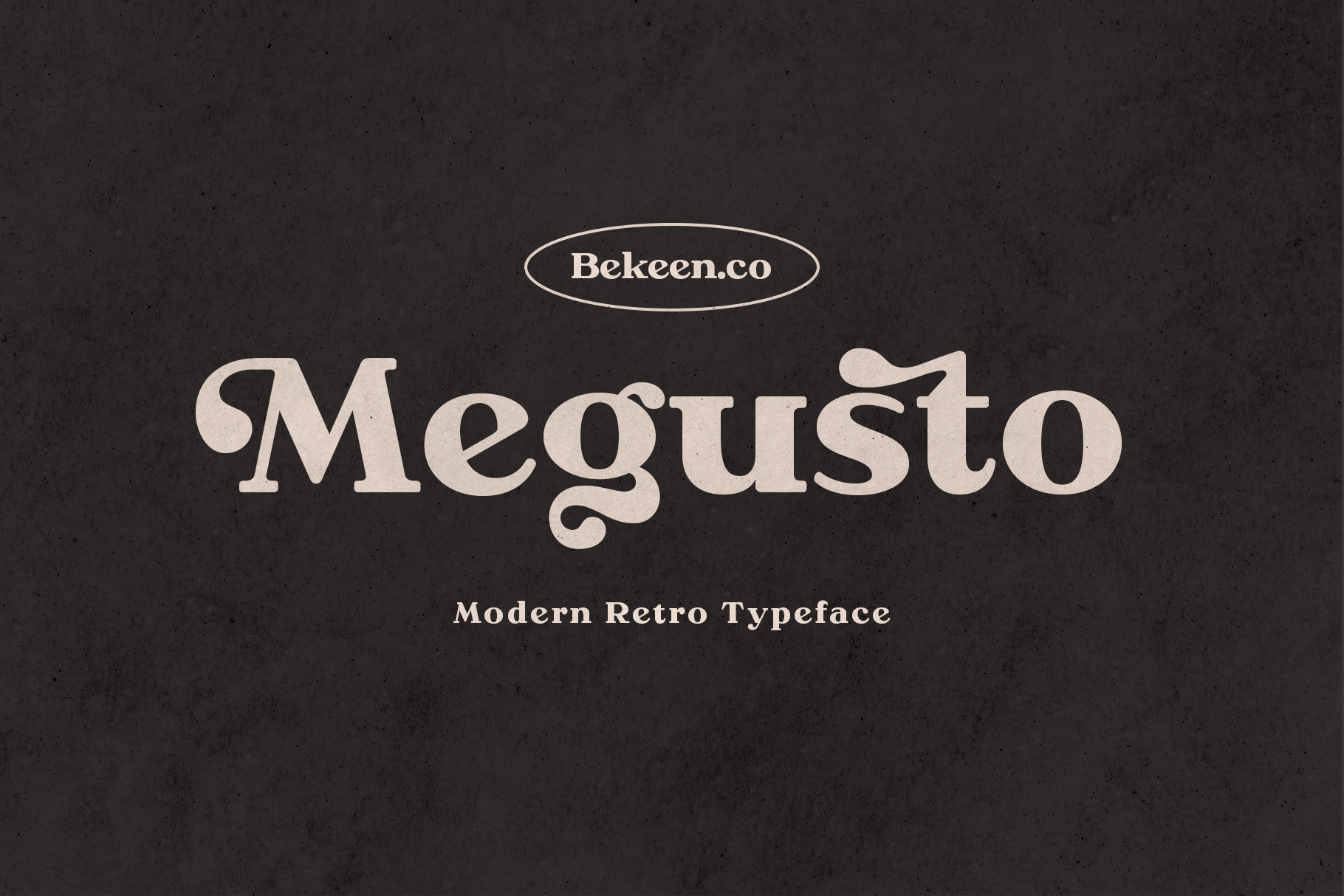
Megusto is a modern retro serif, inspired by the Italian godfather. It comes in a smooth and bold shape. Megusto has stylistic alternates set. Megusto would be perfect for branding, vintage posters, wedding invitations, apparel, and more.